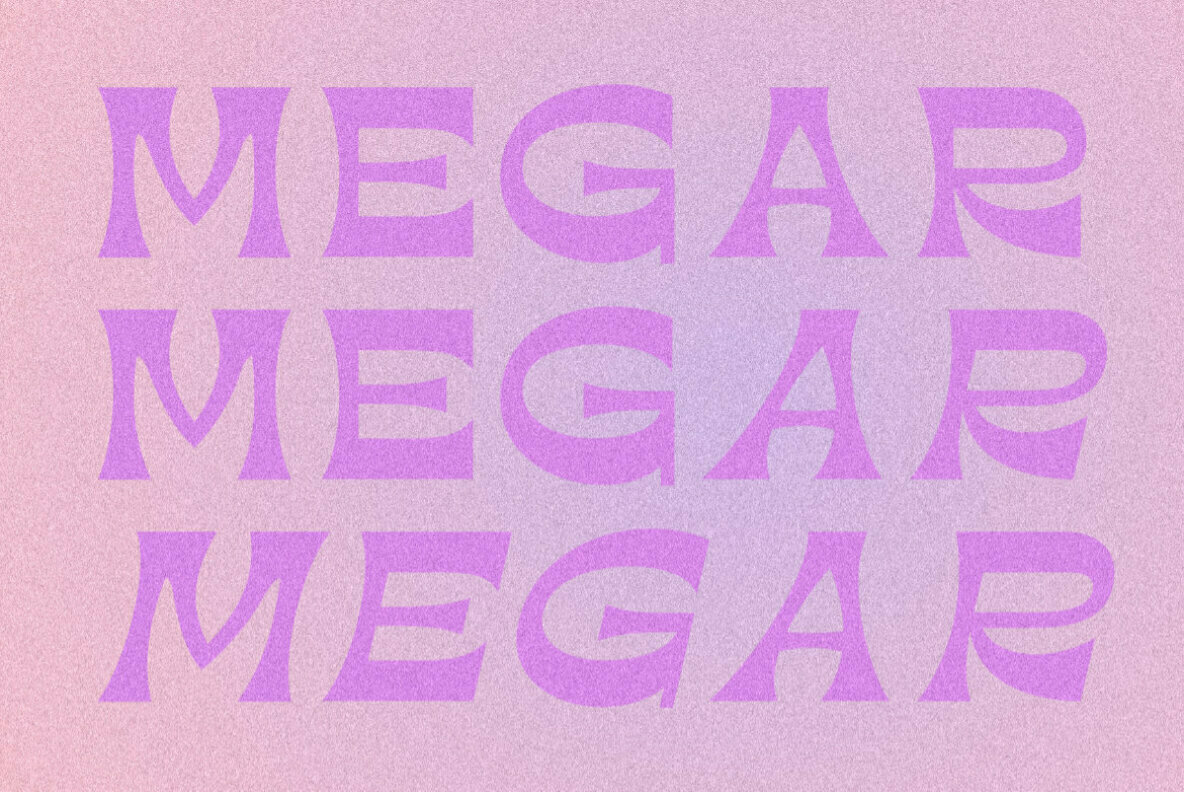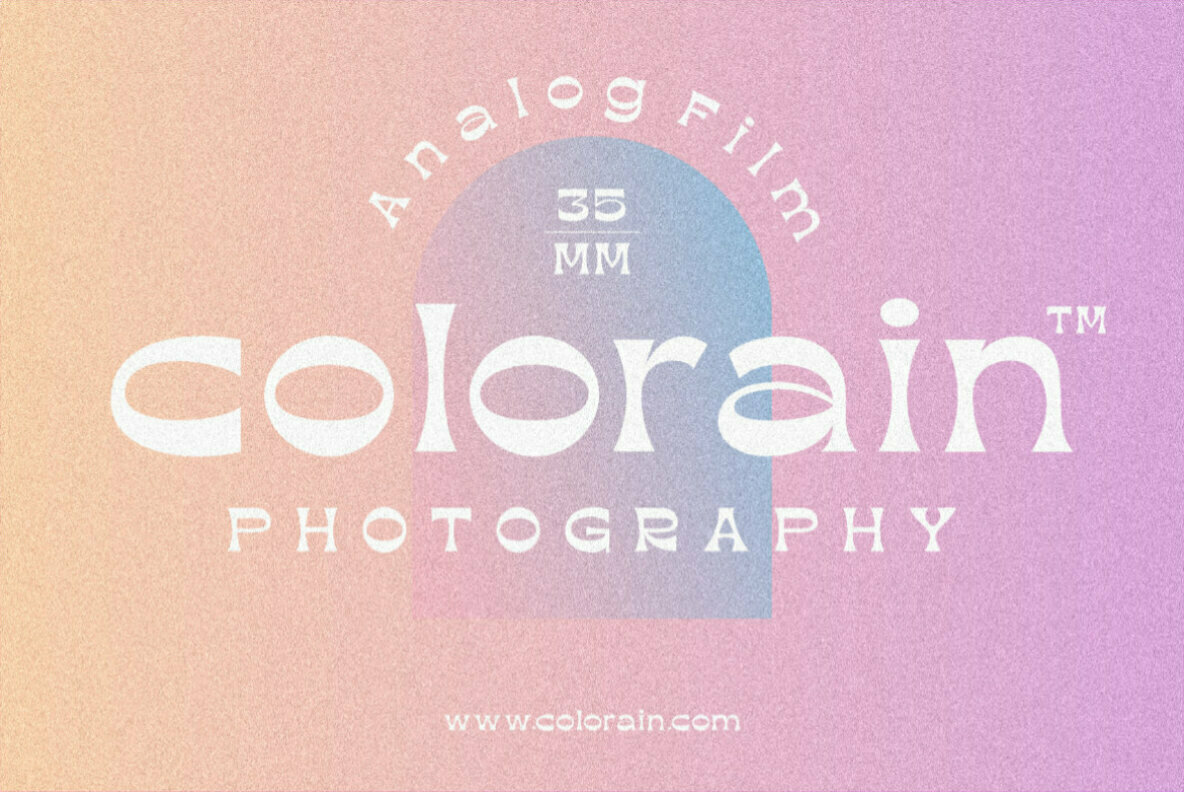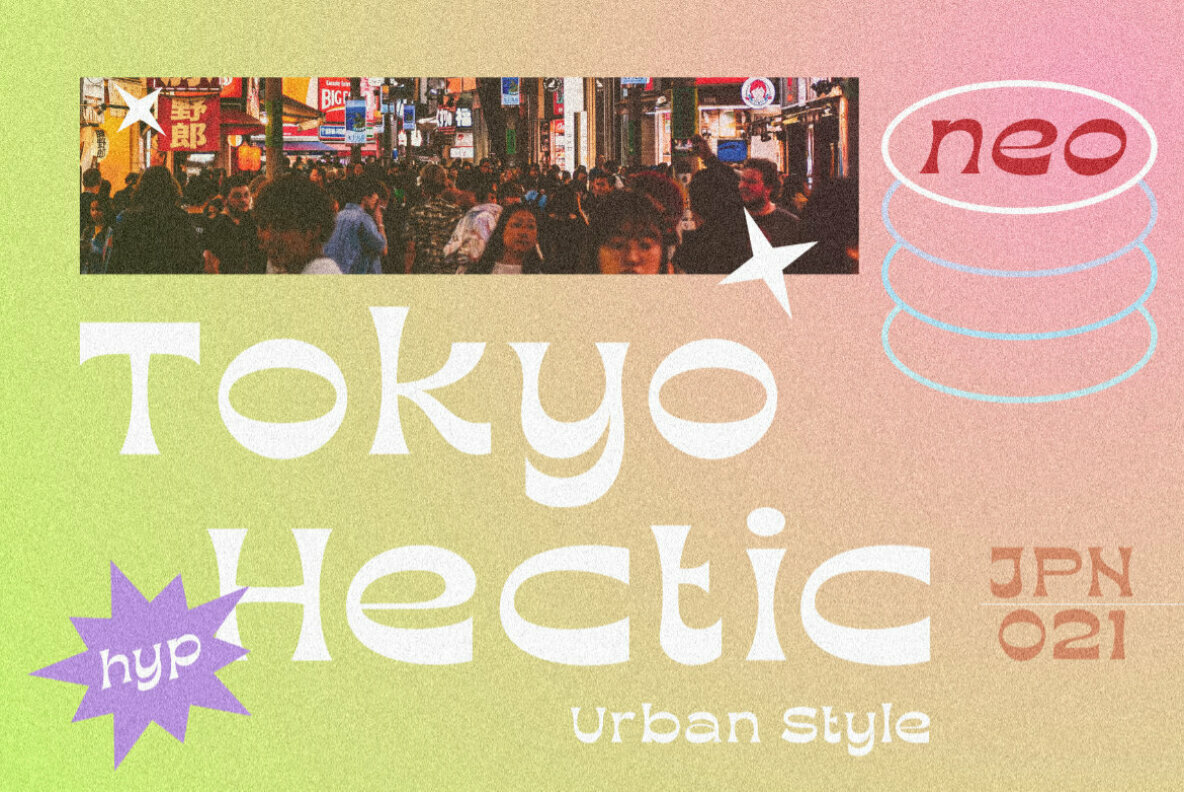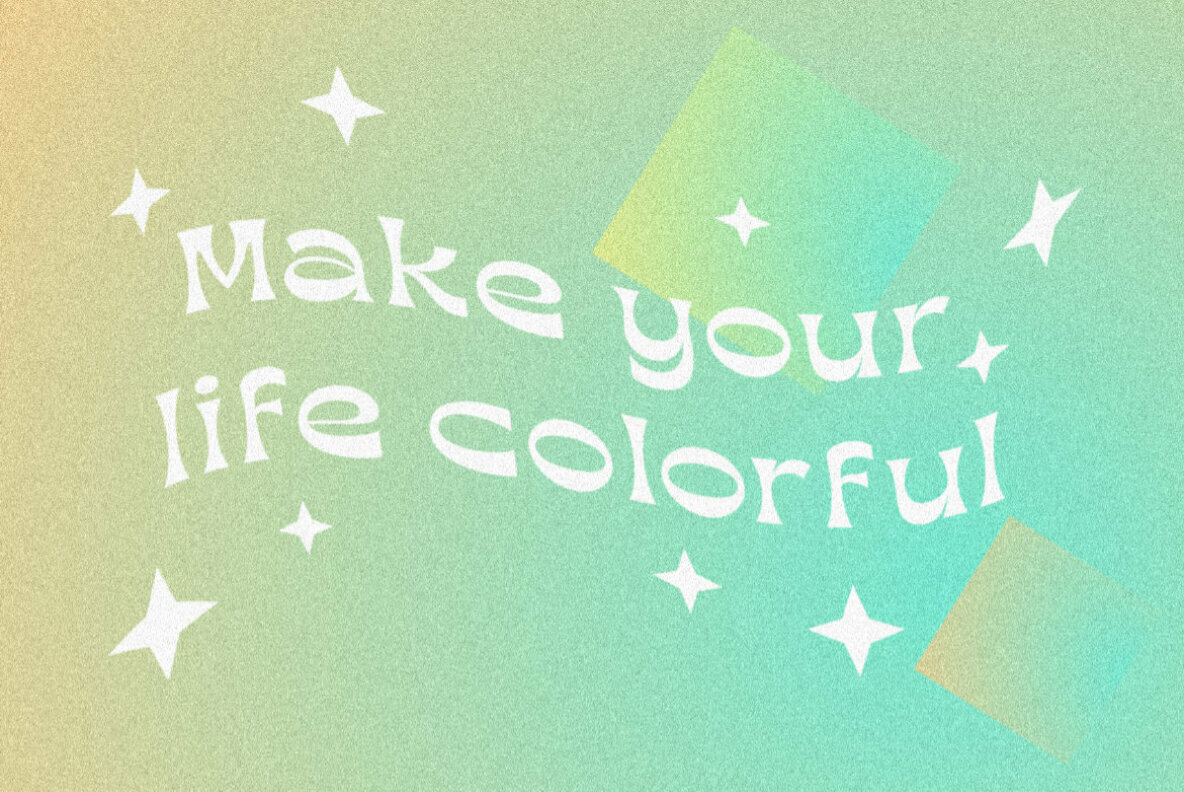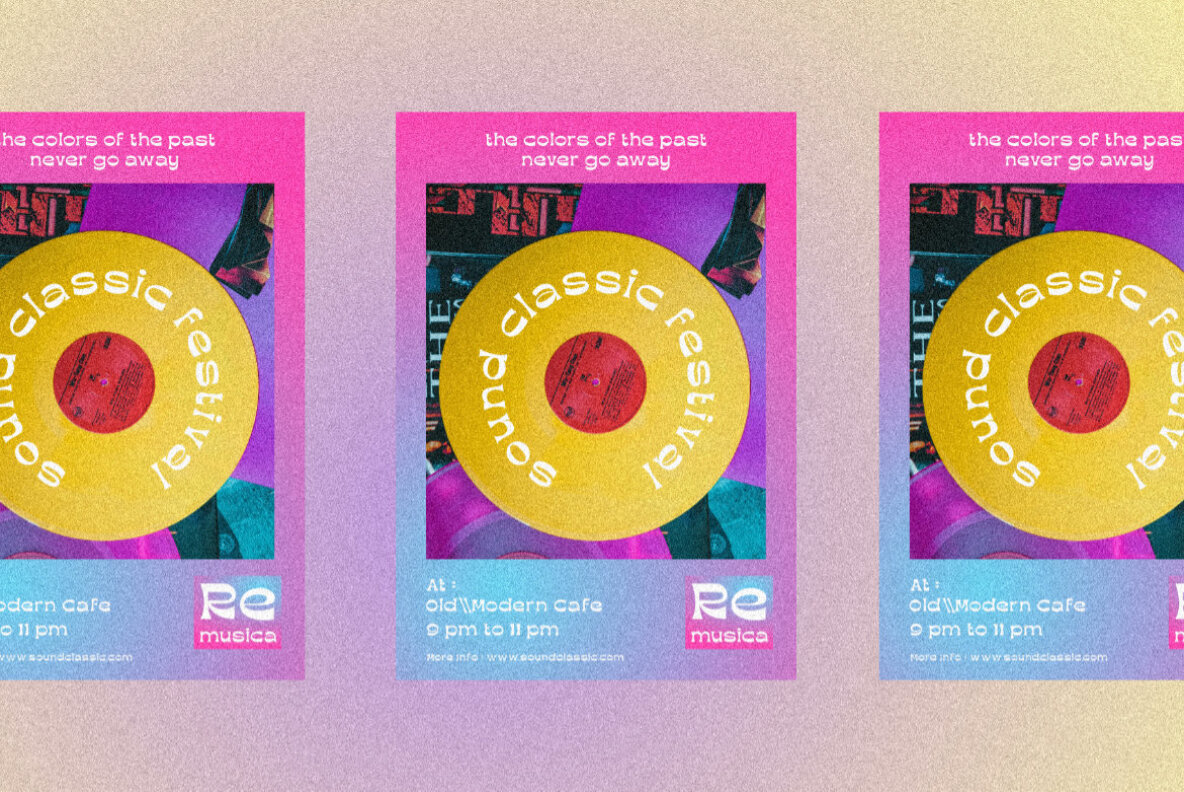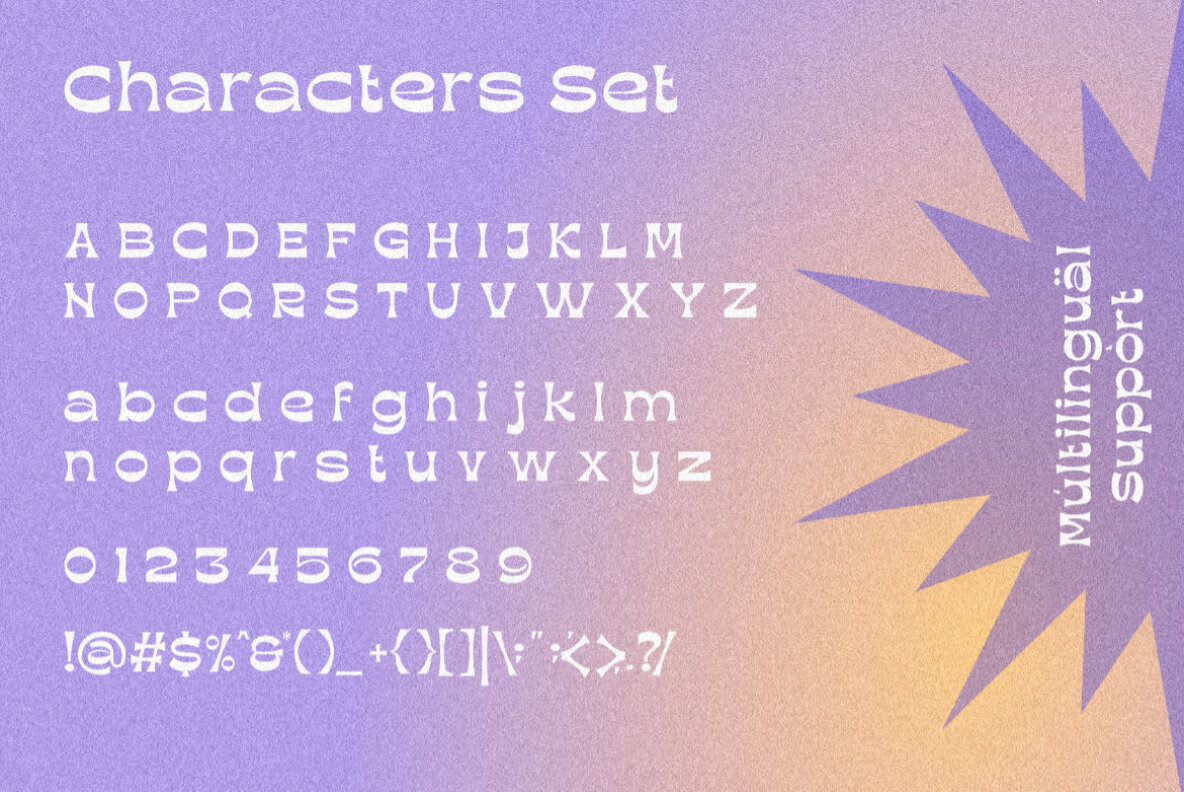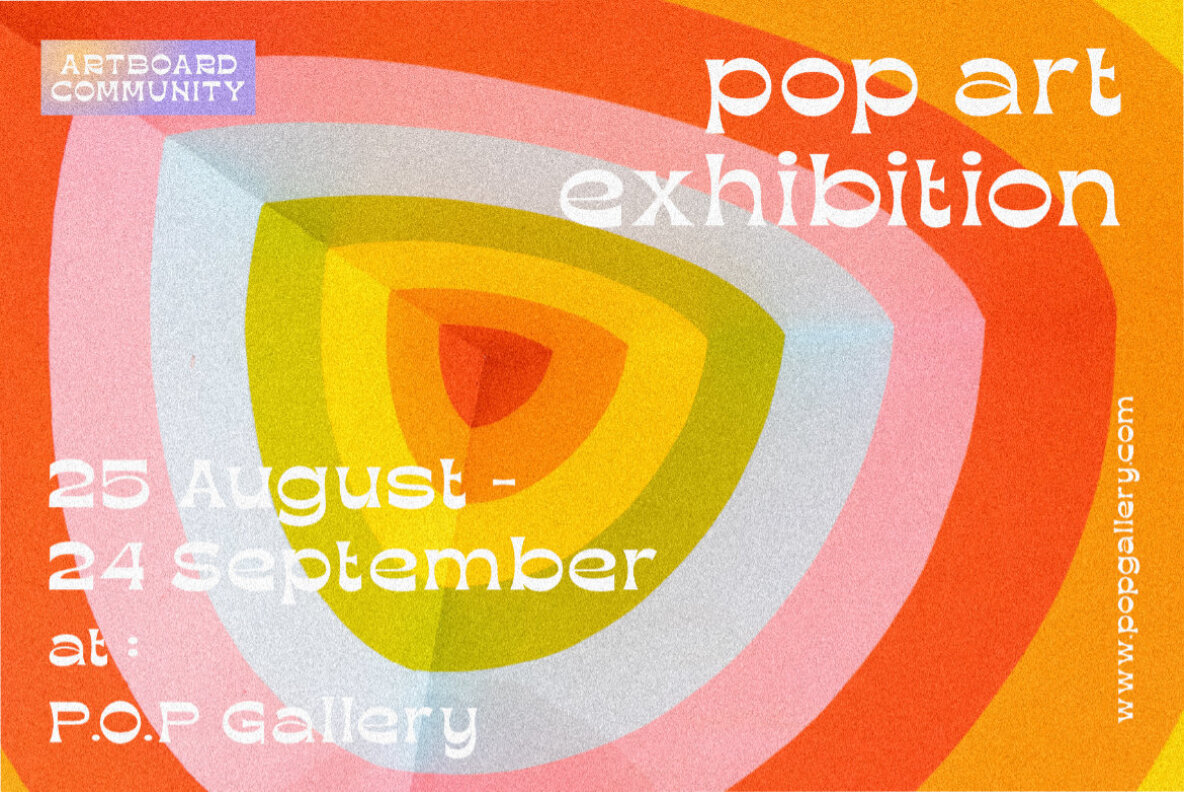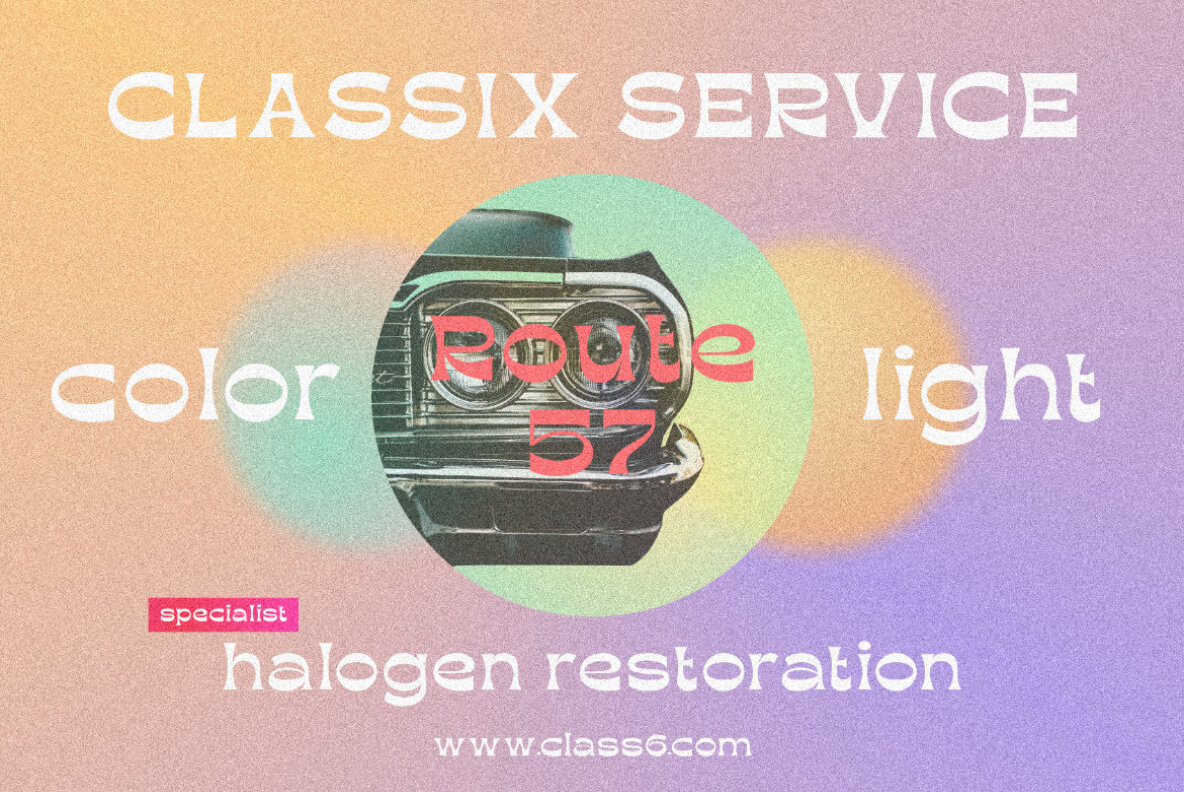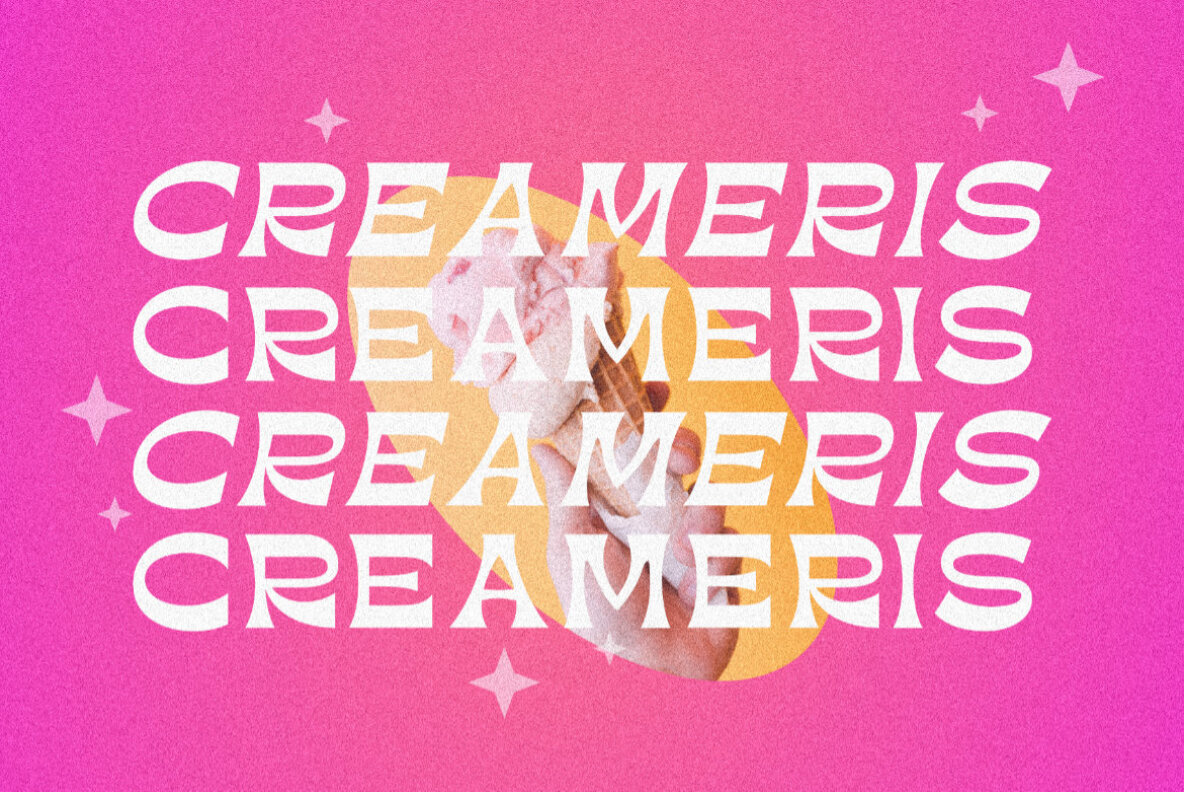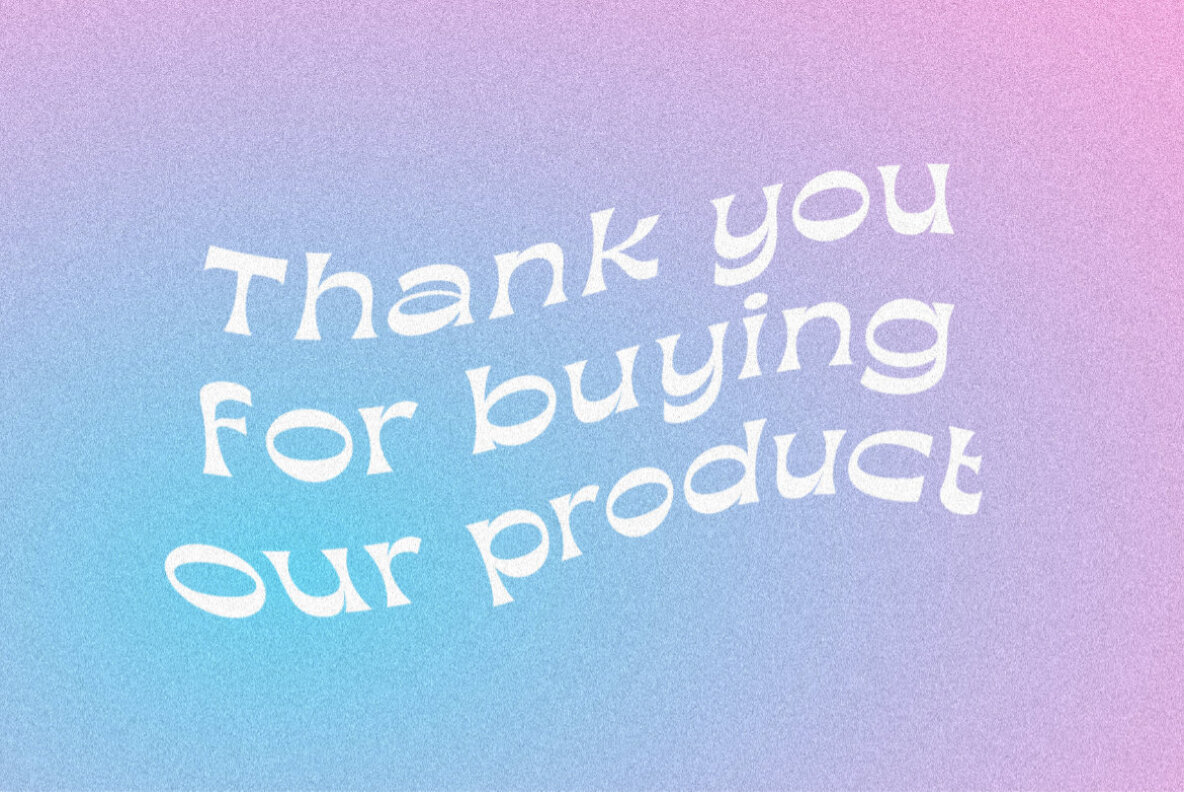
Megar Font
Megar is a display font with a bold retro feel and available in 2 styles, regular & oblique. It is suitable to complement your work with a retro or pop art theme.